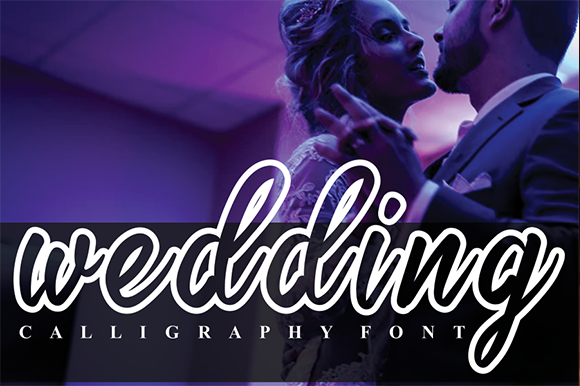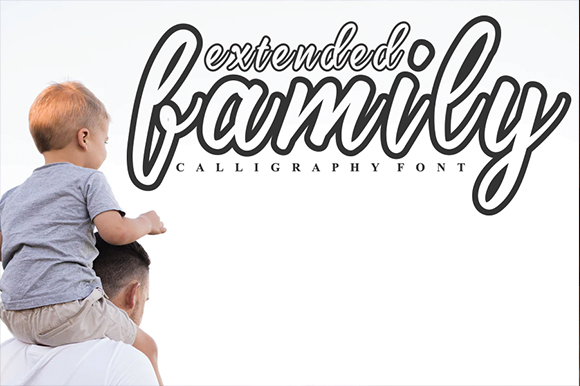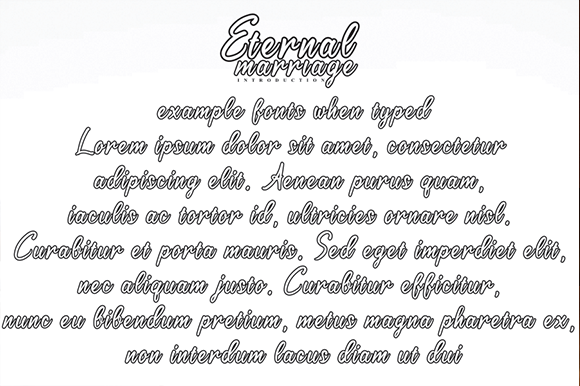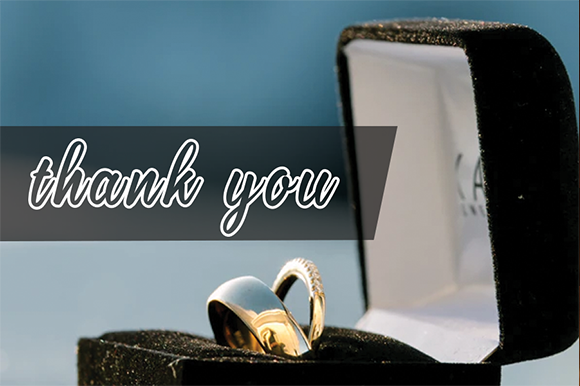
Eternal Marriage Font: The Perfect Choice for Creative Projects
Are you a designer, crafter, or DIY enthusiast looking for a font that can add a touch of personality to your creative projects? Look no further than the Eternal Marriage Font! This cute and casual display font is designed to bring a friendly feel to any design, making it perfect for a wide range of applications.
What is Eternal Marriage Font?
Eternal Marriage Font is a display font that boasts an incredibly friendly feel. Its casual and approachable style makes it ideal for use in a variety of creative projects, from social media graphics and Instagram posts to calligraphy scripts and DIY crafts.
Key Features of Eternal Marriage Font
• Cute and Casual Style: Eternal Marriage Font has a playful and relaxed vibe that makes it perfect for designers and crafters who want to add a personal touch to their work.
• Friendly Feel: The font’s friendly feel makes it easy to read and understand, making it perfect for use in body text or headings.
• Highly Versatile: Eternal Marriage Font can be used in a wide range of creative projects, from digital designs to handmade crafts.
Uses for Eternal Marriage Font
Eternal Marriage Font is a highly versatile font that can be used in a wide range of creative projects, including:
• Instagram Graphics: Add a personal touch to your Instagram posts and stories with Eternal Marriage Font.
• Calligraphy Scripts: Use Eternal Marriage Font to create beautiful calligraphy scripts for DIY projects, such as wedding invitations, greeting cards, and more.
• DIY Crafts: Eternal Marriage Font is perfect for use in DIY crafts, such as handmade cards, gift tags, and other paper crafts.
• Digital Designs: Use Eternal Marriage Font in digital designs, such as brochures, flyers, and other marketing materials.
Why Choose Eternal Marriage Font?
So why choose Eternal Marriage Font for your creative projects? Here are just a few reasons:
• Unique Style: Eternal Marriage Font has a unique and distinctive style that will set your designs apart from the crowd.
• Easy to Read: The font’s friendly feel makes it easy to read and understand, even at small sizes.
• Highly Versatile: Eternal Marriage Font can be used in a wide range of creative projects, making it a great addition to any designer’s or crafter’s toolkit.
Eternal Marriage Font is a cute and casual display font that is perfect for designers, crafters, and DIY enthusiasts. Its friendly feel and highly versatile style make it ideal for use in a wide range of creative projects, from Instagram graphics to calligraphy scripts and DIY crafts. With its unique style, ease of use, and affordability, Eternal Marriage Font is a great addition to any designer’s or crafter’s toolkit.